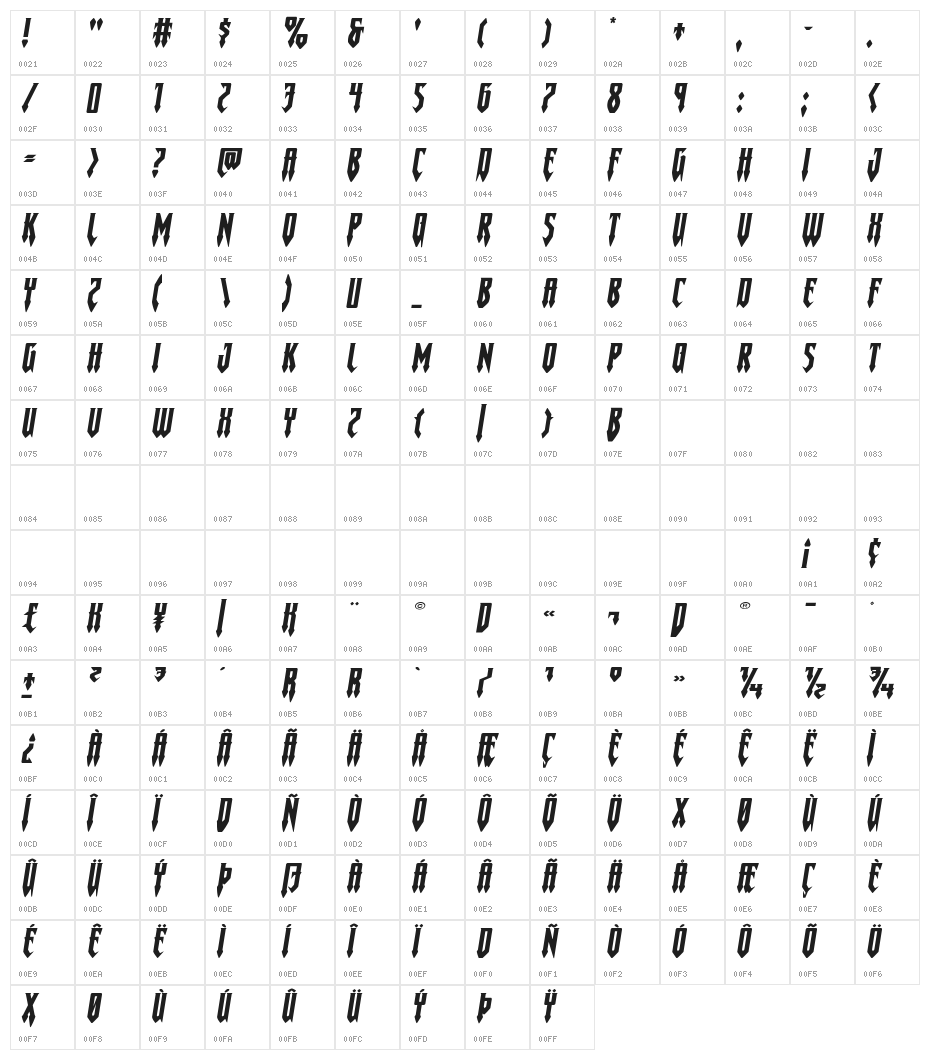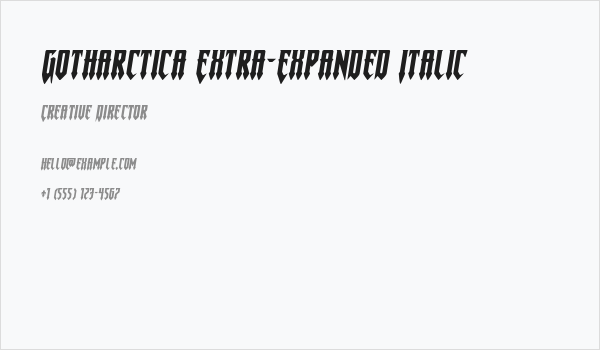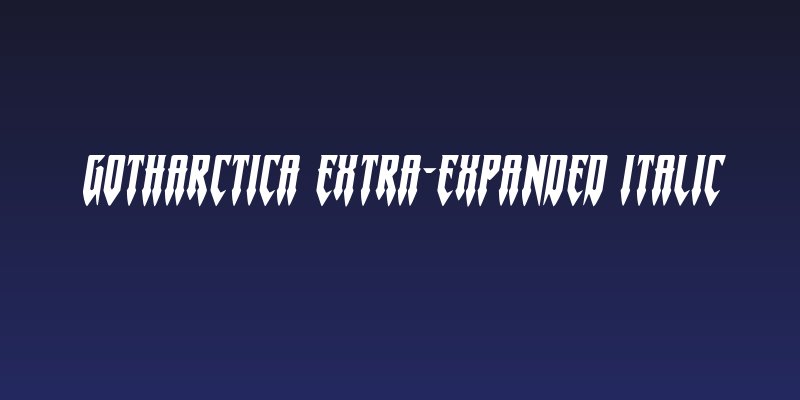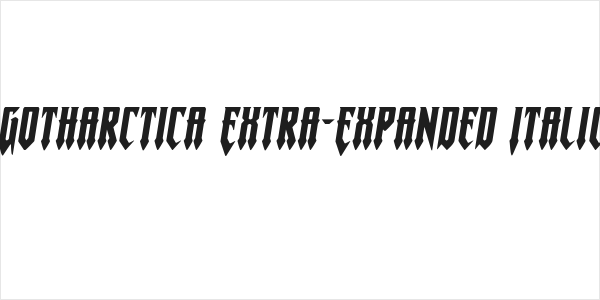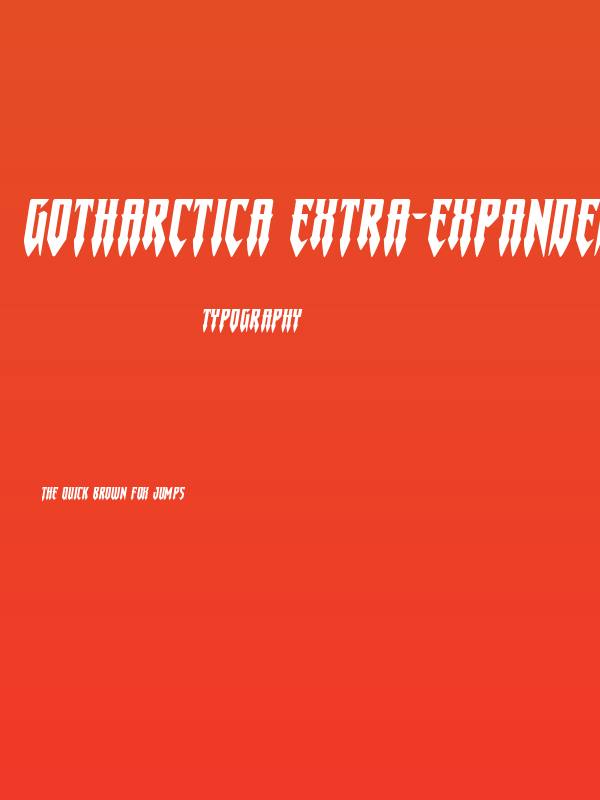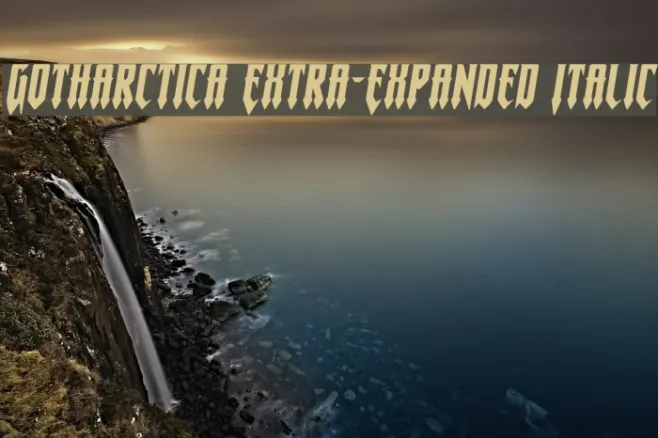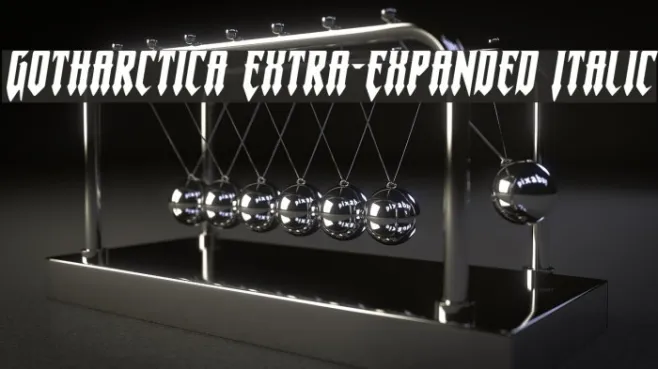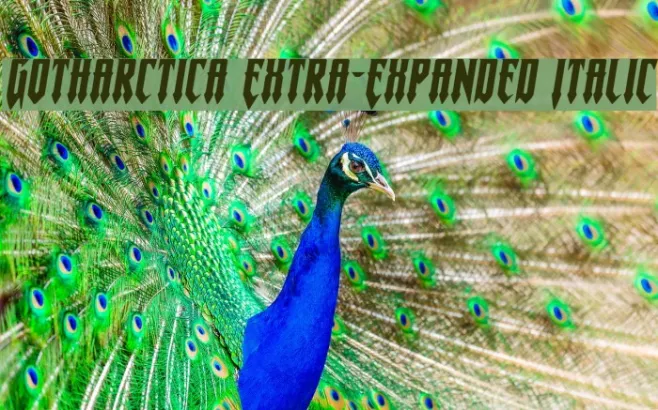
Gotharctica Extra-Expanded Italic Font
Gotharctica Extra-Expanded Italic Description
This font features a bold and dynamic design with sharp, angular edges and a distinct italic slant. The characters are extra-expanded, giving them a wide stance that commands attention. The uppercase and lowercase letters maintain a consistent style, with exaggerated serifs and a gothic influence that adds a dramatic flair. The numbers and special characters follow the same aesthetic, ensuring uniformity across all text. The overall appearance is striking and modern, making it suitable for projects that require a strong visual impact.
| Overall Style | Modern, Gothic |
| Proposed Projects | Ideal for posters, album covers, branding, and any design requiring a bold, dramatic typeface. |